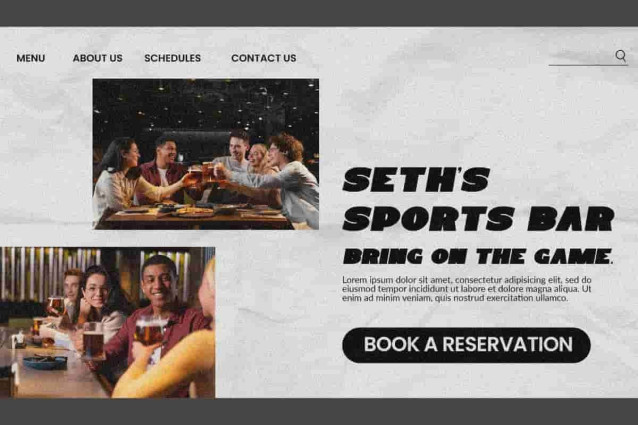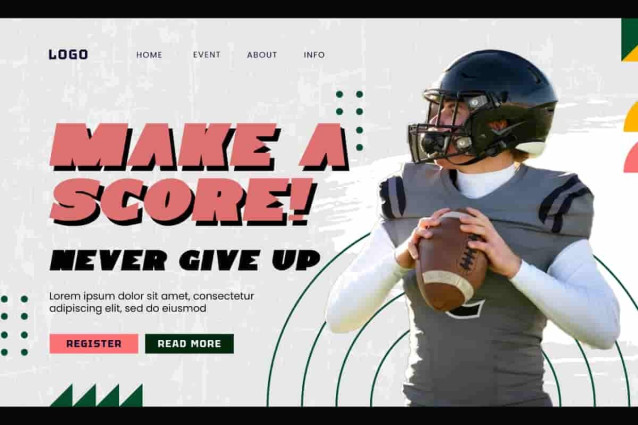
Top Chart Font
Top Chart Font is a trendy font with a bold concept in racing display font, by RaisProject. This font display has a bold and sharp shape so it can add coolness to every design you make. It will be good for label, poster, invitation, signage, cover, menu, custom design, brand image, product packaging, quotes, stationery, web, and more!
Top Chart Font includes a full set of Uppercase and Lowercase Letters, Numerals, Punctuation and Symbol. This cool font also contain Ligature character that will be suitable for various industries, such as automotive, sports, game, fashion, accessories, advertisement, event or festival, printing, publishing, etc.